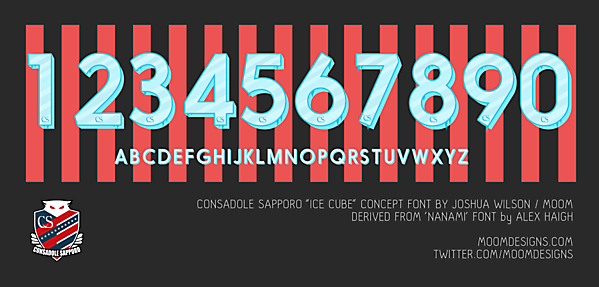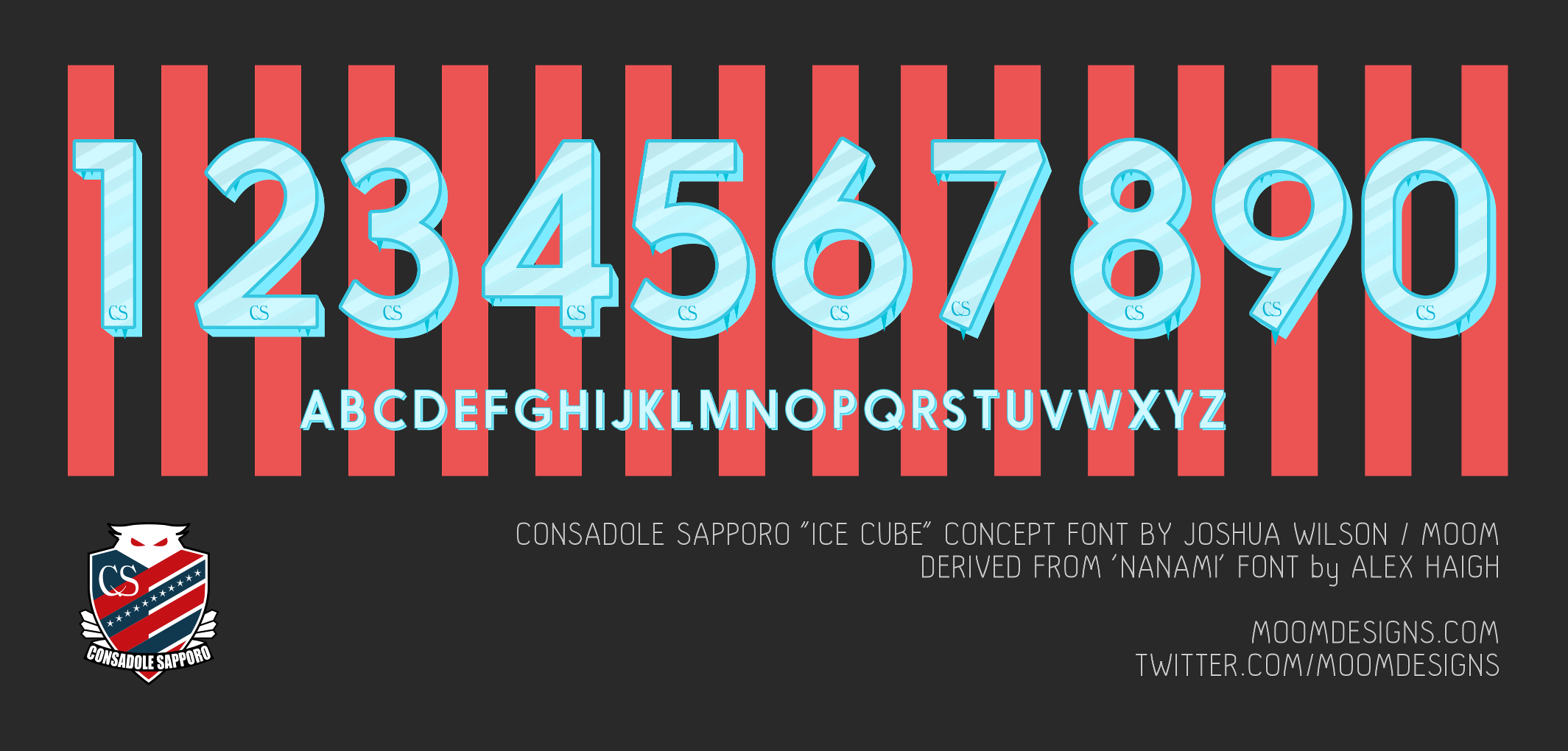
Consadole Sapporo ( J-League ) Ice-Cube Font
• Generic Description: Nanami font by Alex Haight used as the base. No intention to claim the base glyphs as my own! Please do not reproduce my ice-cube + icicle motif in a similar fashion tho. :(
They're ice cubes because Consadole is from the snowy northern region of Japan known as Hokkaido. (: